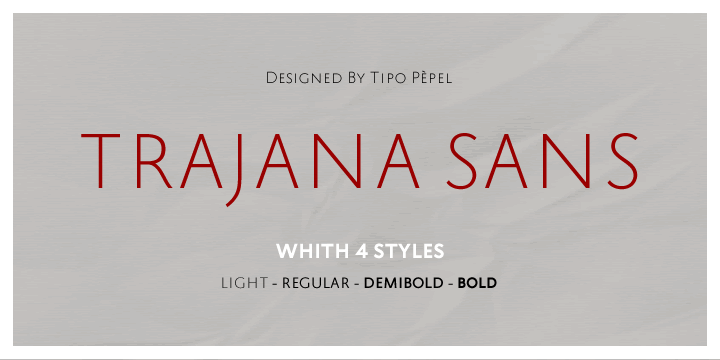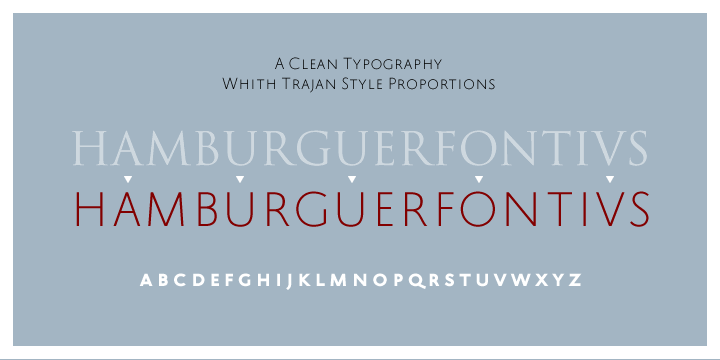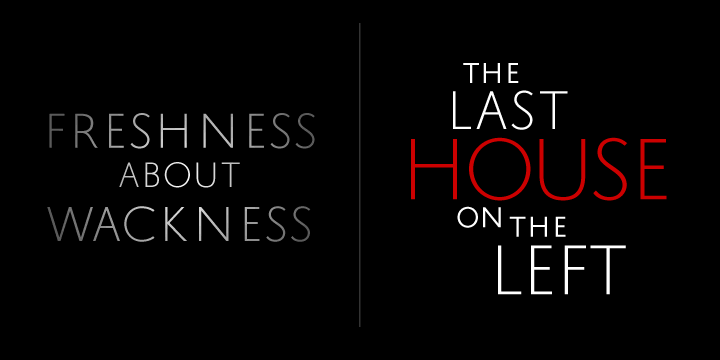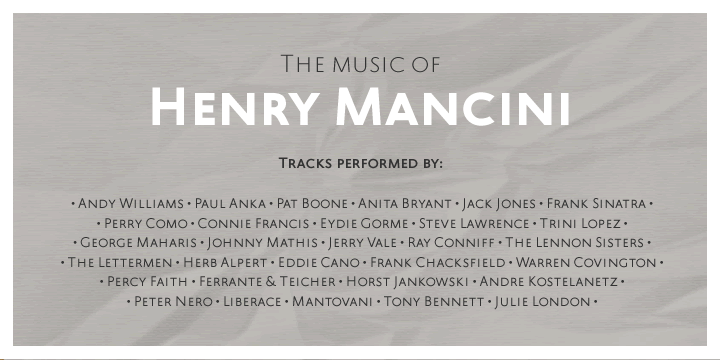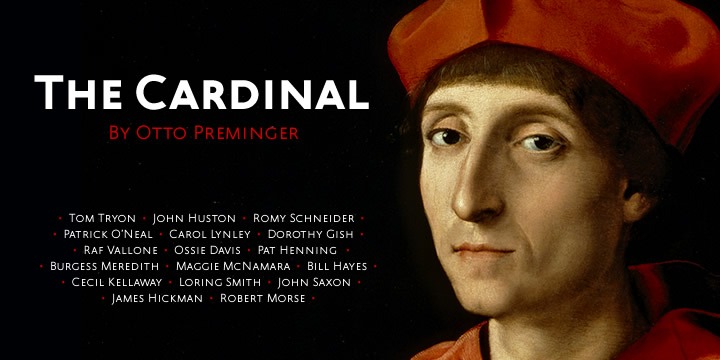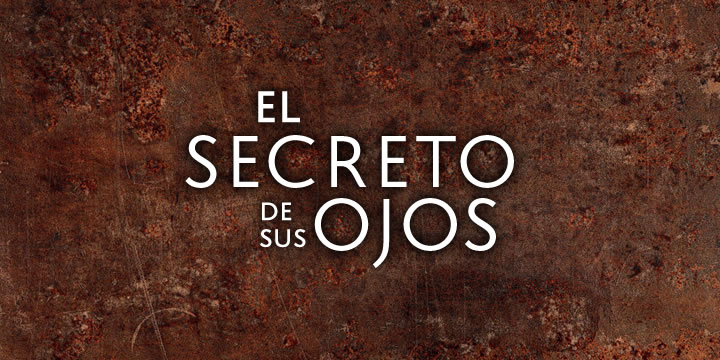
Trajana Sans
Font Family by Tipo Pèpel
The ?Trajana Sans? is a sans-serif typeface family based on the shapes and proportions of the characters in the Trajan's Column in Rome. It consists of 4 weights, Light, Regular, DemiBold & Bold. Ideal to give a classic look and renewed our jobs without having to resort to the usual Trajan font.